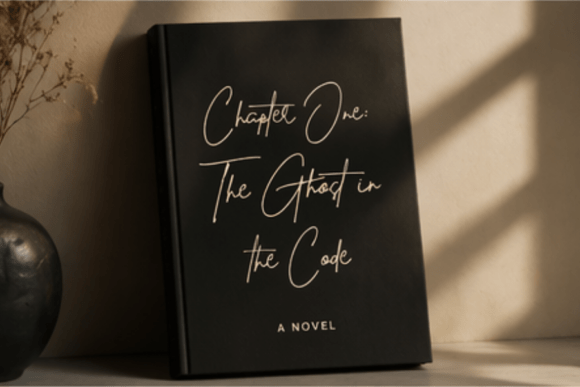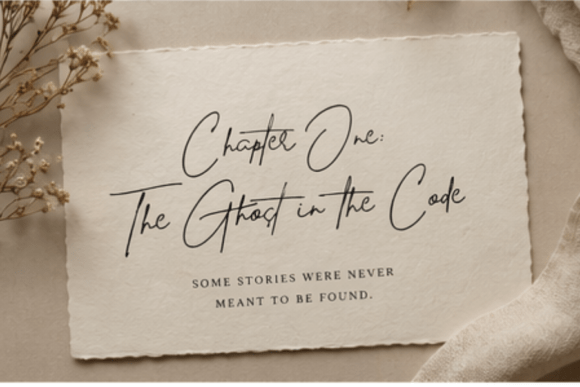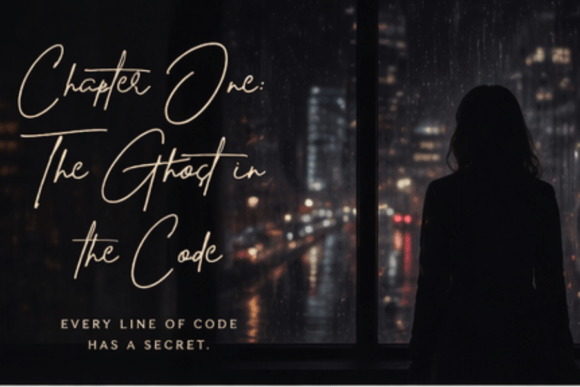
Introduction to Midnight Note Font
Have you ever found yourself scribbling down a brilliant idea in the dead of night, the words flowing effortlessly onto the page as the clock strikes midnight? That’s the magic of the creative process, and it’s precisely what inspired the Midnight Note Font – a highly expressive and authentic handwritten script designed to capture the essence of those spontaneous, unrefined moments.
As a designer, you’re constantly on the lookout for the perfect design resource to elevate your creative projects. With Midnight Note Font, you’ll find a high-quality, versatile font that’s perfect for book covers, novel titles, elegant branding, and more. Its smooth, organic flow mimics real handwriting, adding a touch of raw emotion and authentic energy to your designs. Whether you’re working on a free download or a paid project, this font is sure to bring a unique touch to your work.
Key Features of Midnight Note Font
- High-quality design for creative projects, making it an ideal design resource.
- Transparent background, allowing for easy layering and customization.
- Unique, handwritten style that adds a touch of elegance to any design.
- Perfect for use in a variety of creative projects, from branding and marketing materials to digital art and typography.
Honest Review: Midnight Note Font
I recently stumbled upon the Midnight Note Font, and I must say it’s a game-changer for any creative project. As a designer, I’m always on the lookout for high-quality fonts that can elevate my work. The Midnight Note Font does just that.
- What works well: ✨ The font’s elegant and sophisticated design makes it perfect for formal projects, while its subtle texture adds a unique touch to any creative project.
- What works well: ✨ The transparent background makes it easy to combine with other design elements and add a sense of depth to your work.
- ⚠️ The font may not be suitable for projects that require a bold, eye-catching font.
- ⚠️ The font’s texture may not be compatible with all design software.
Overall, I’m impressed with the Midnight Note Font. Its unique design and high-quality texture make it a valuable addition to any designer’s toolkit. If you’re looking for a font that can add a touch of sophistication to your work, I highly recommend giving the Midnight Note Font a try.